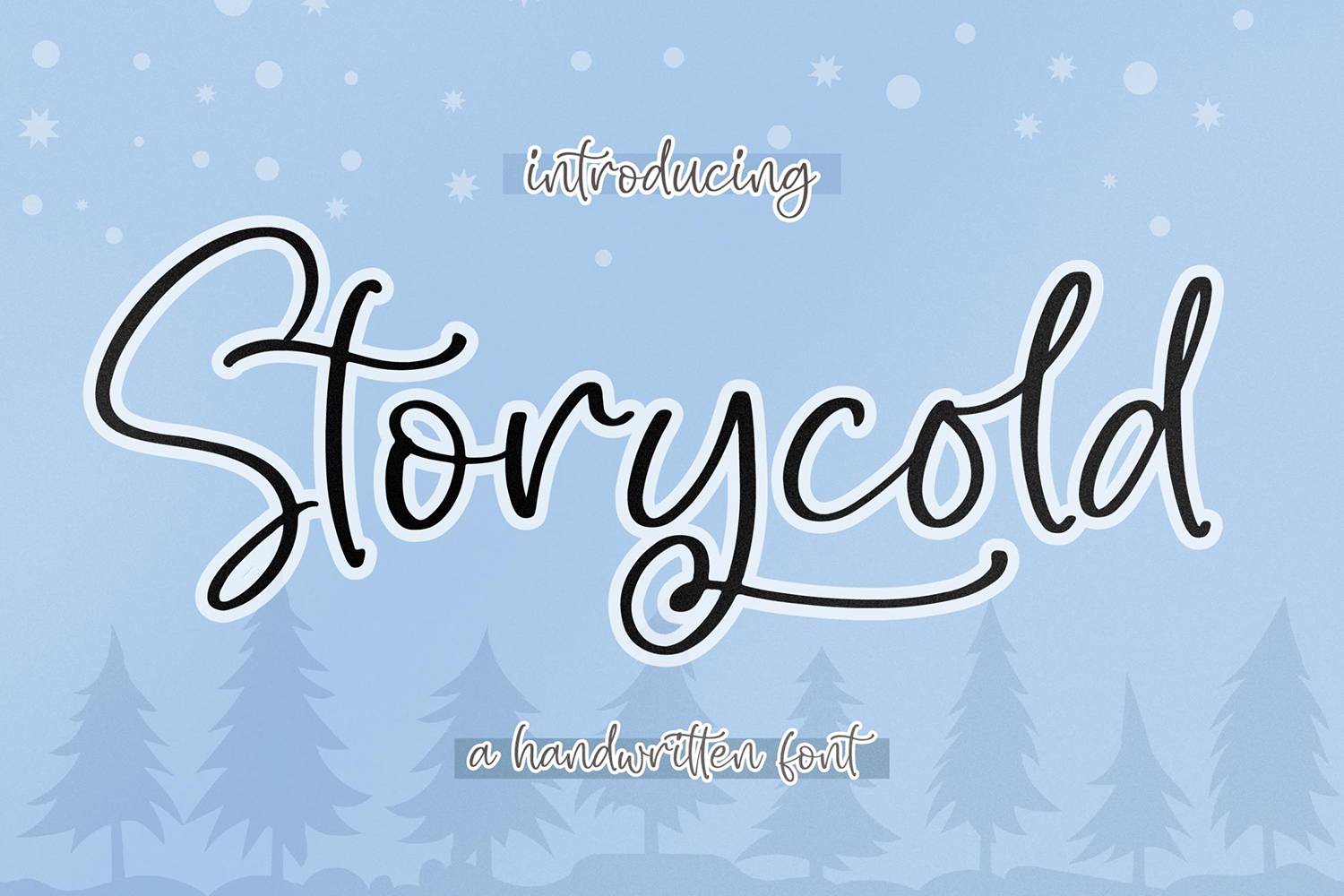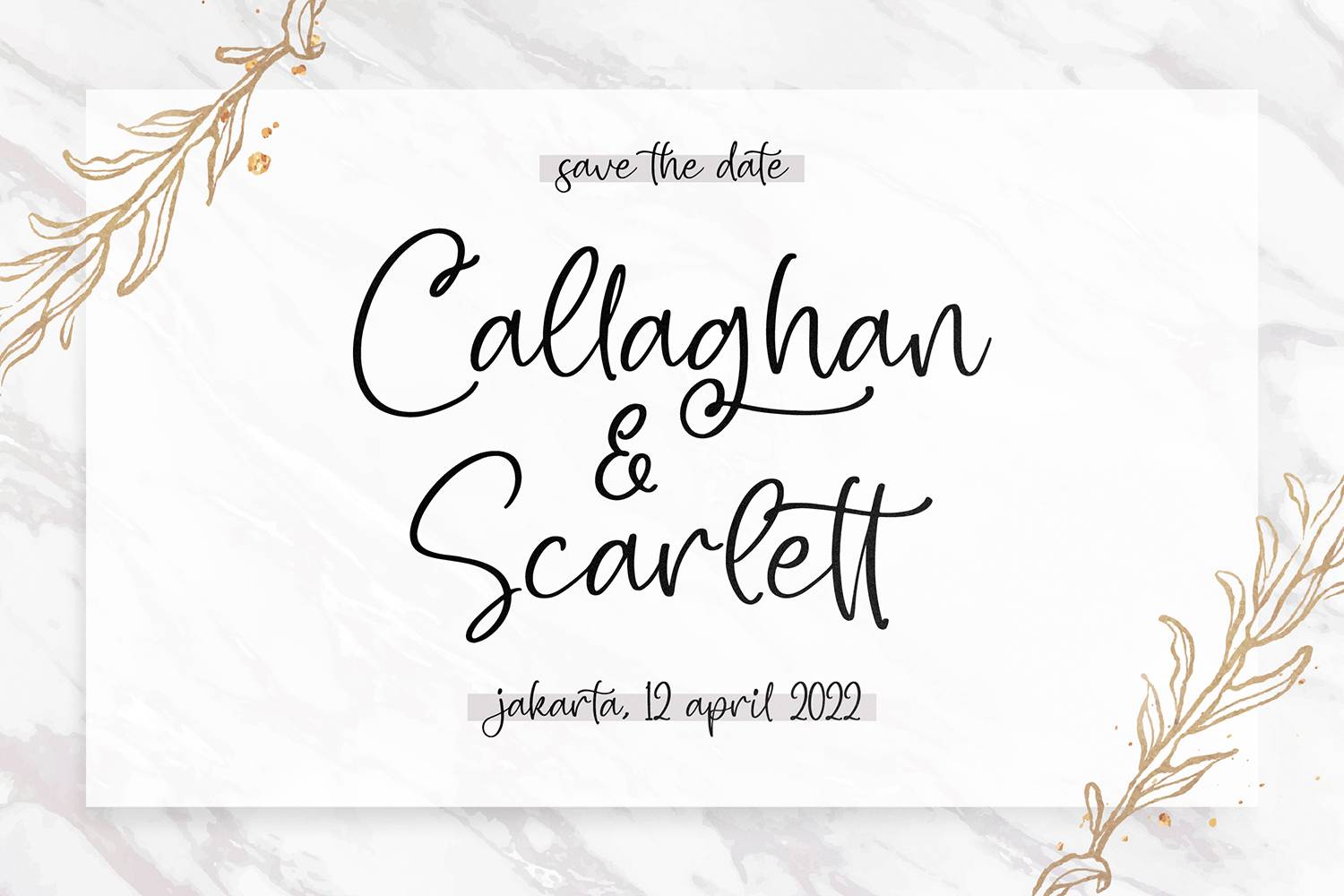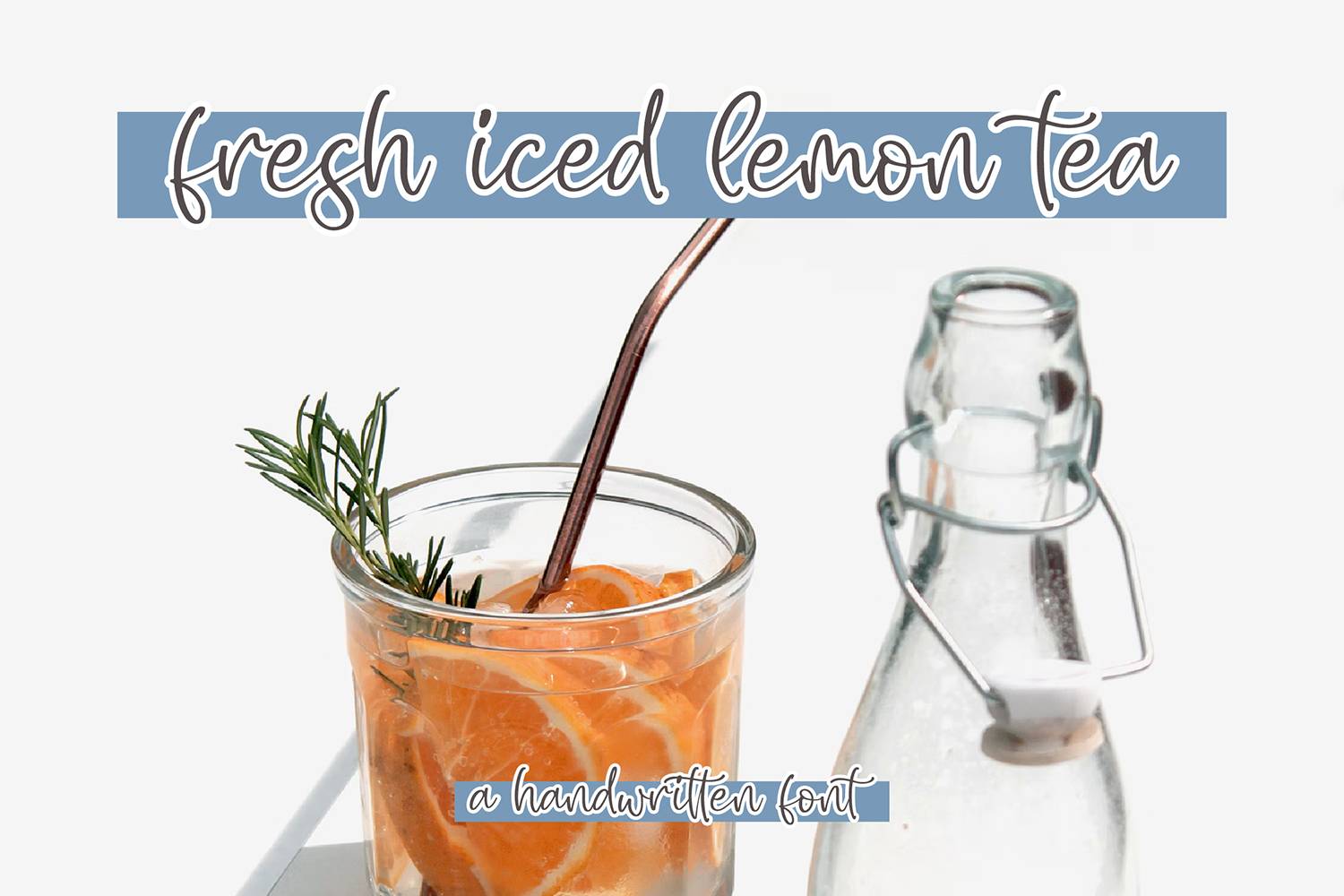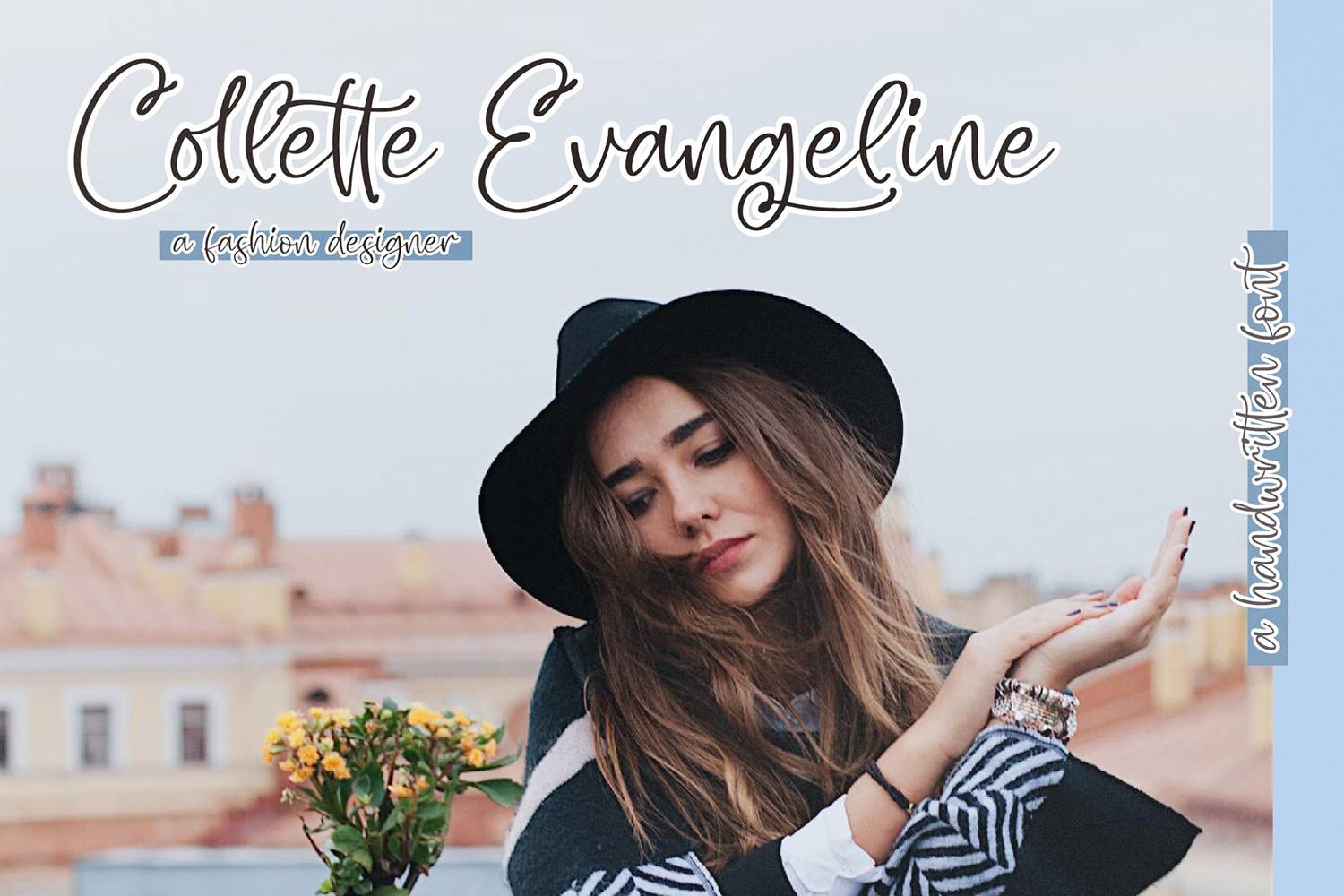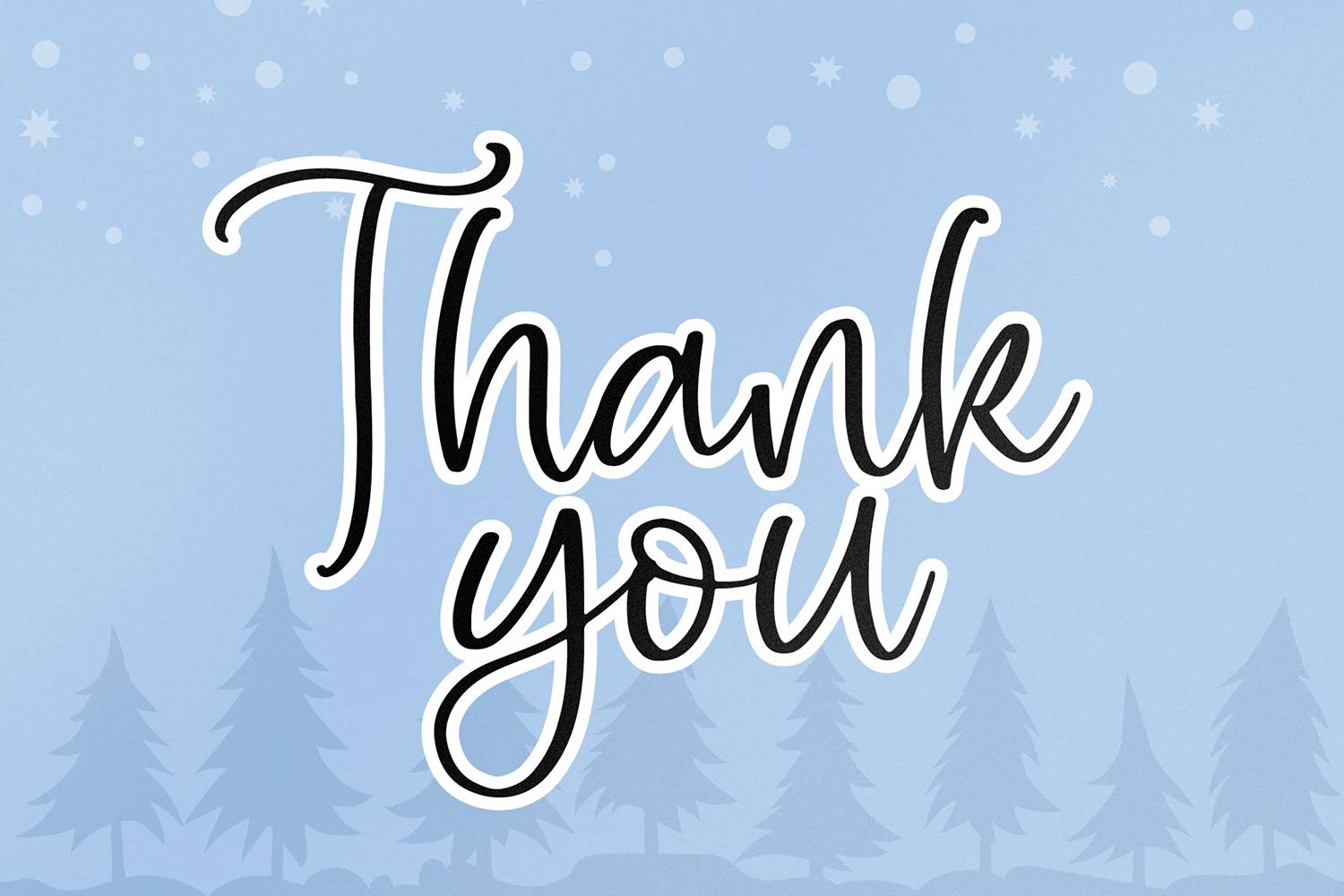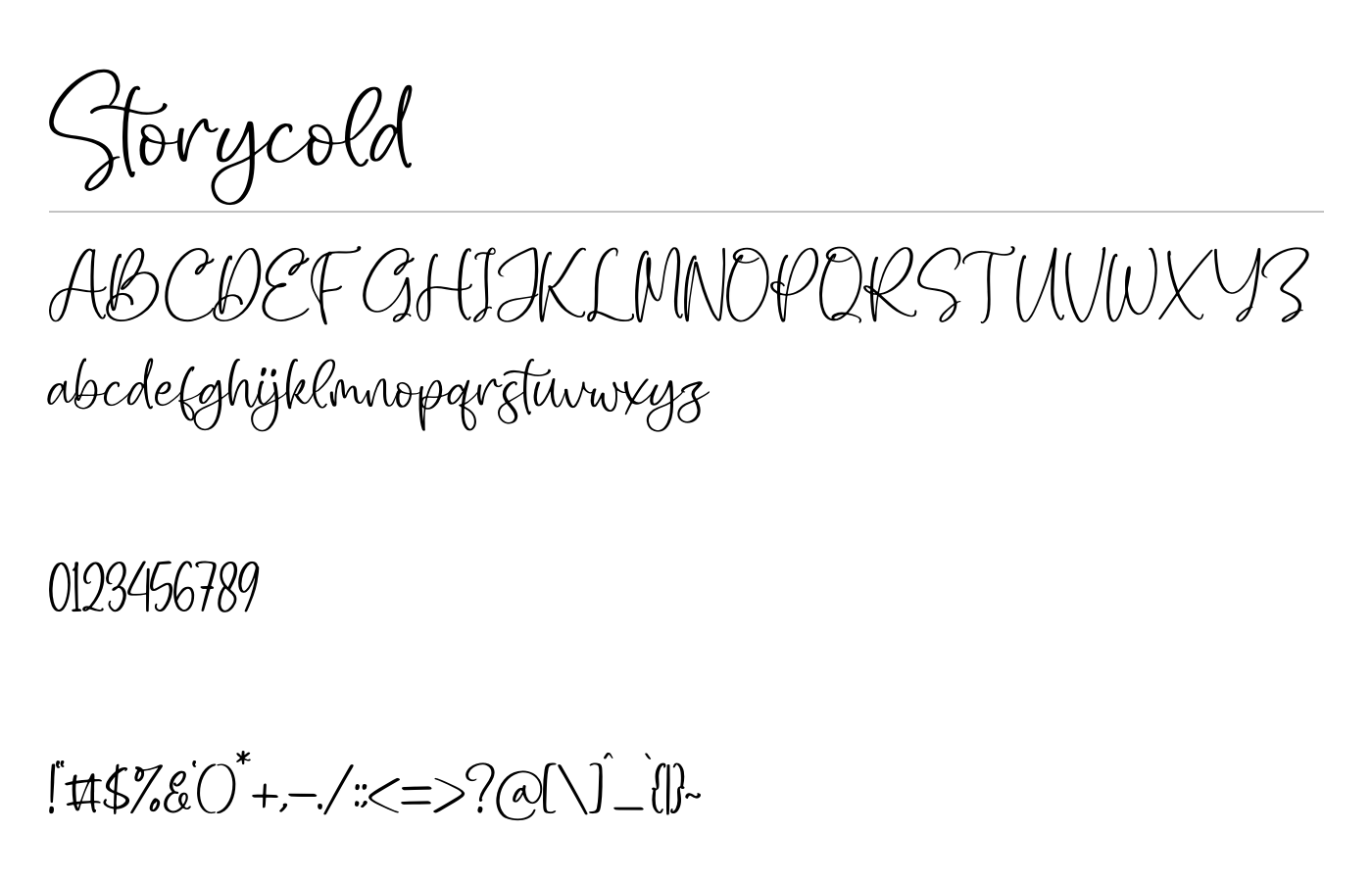
Storycold is a delicate, handwritten script font with a light weight and airy feel, featuring elegant, loosely connected letterforms and playful loops that give it a charming, personal touch. Its tall x-height and slender strokes make it ideal for stylish branding, invitations, and creative projects that aim to convey warmth and modern sophistication. This font works best in headlines, logos, and designs where a friendly yet refined handwritten look is desired.
Storycold Font
About Storycold Font